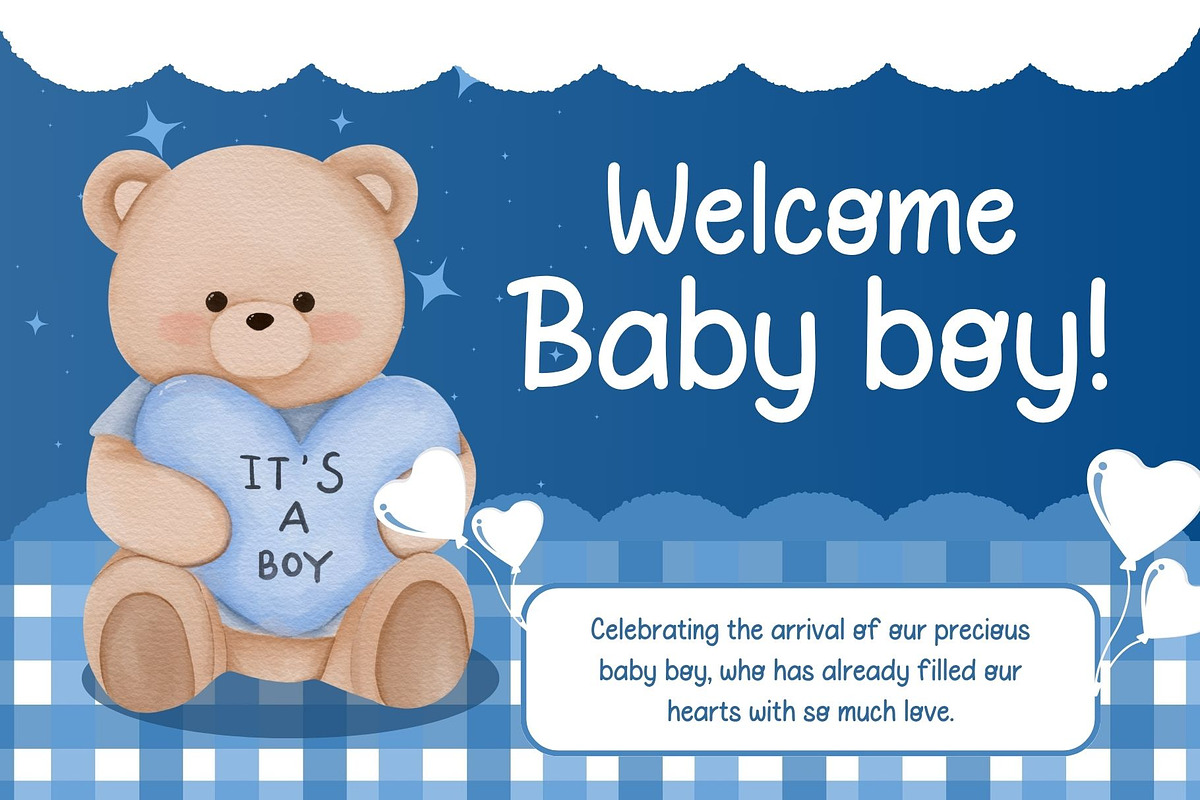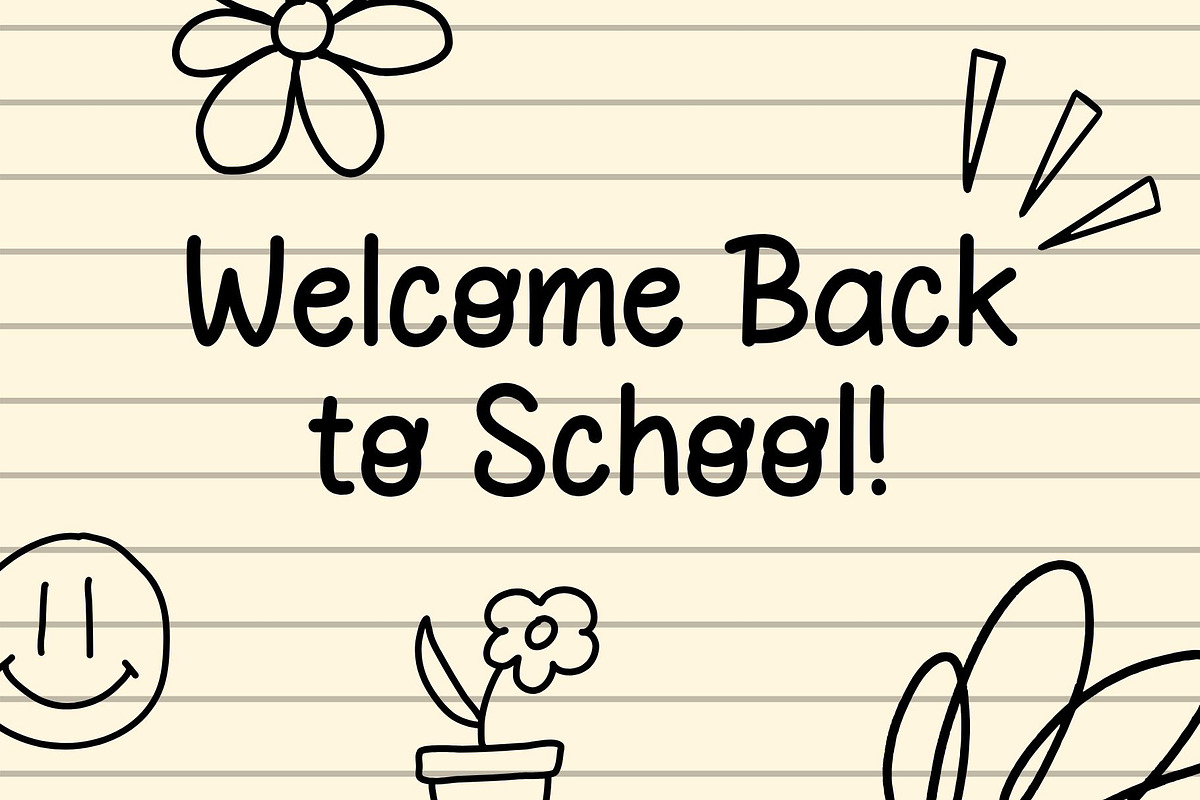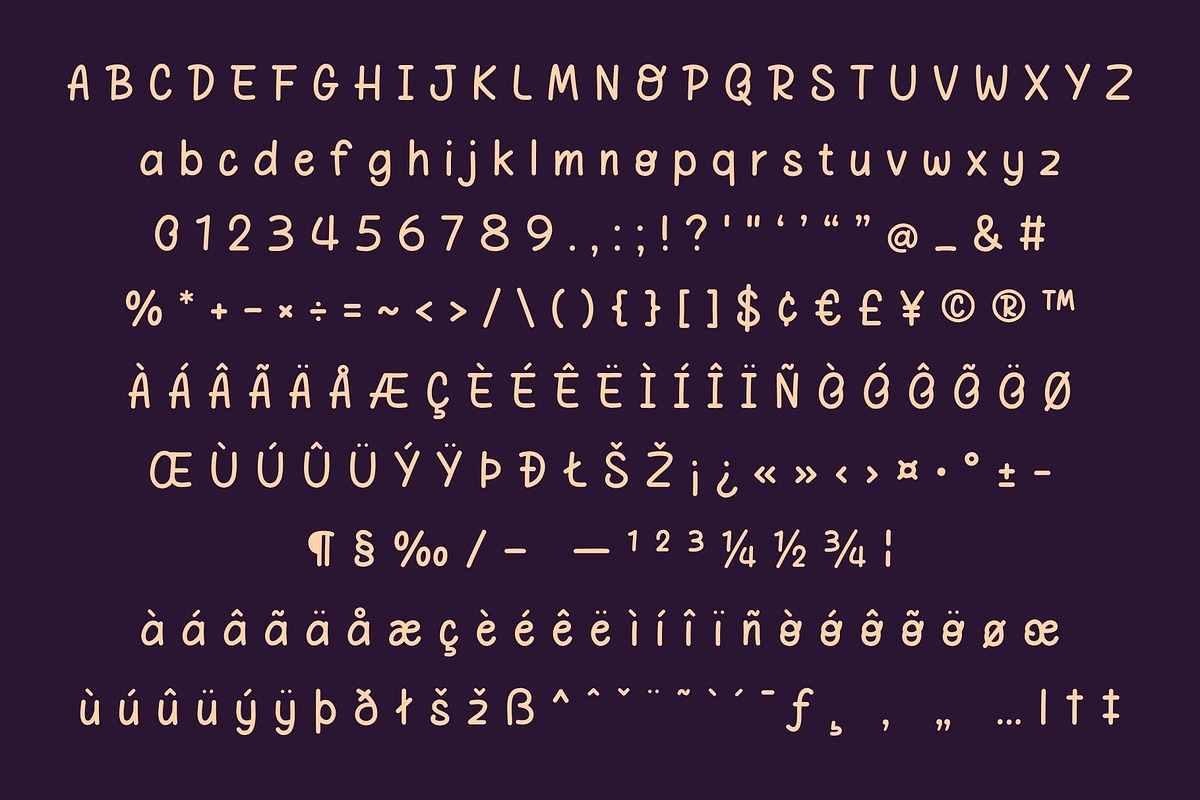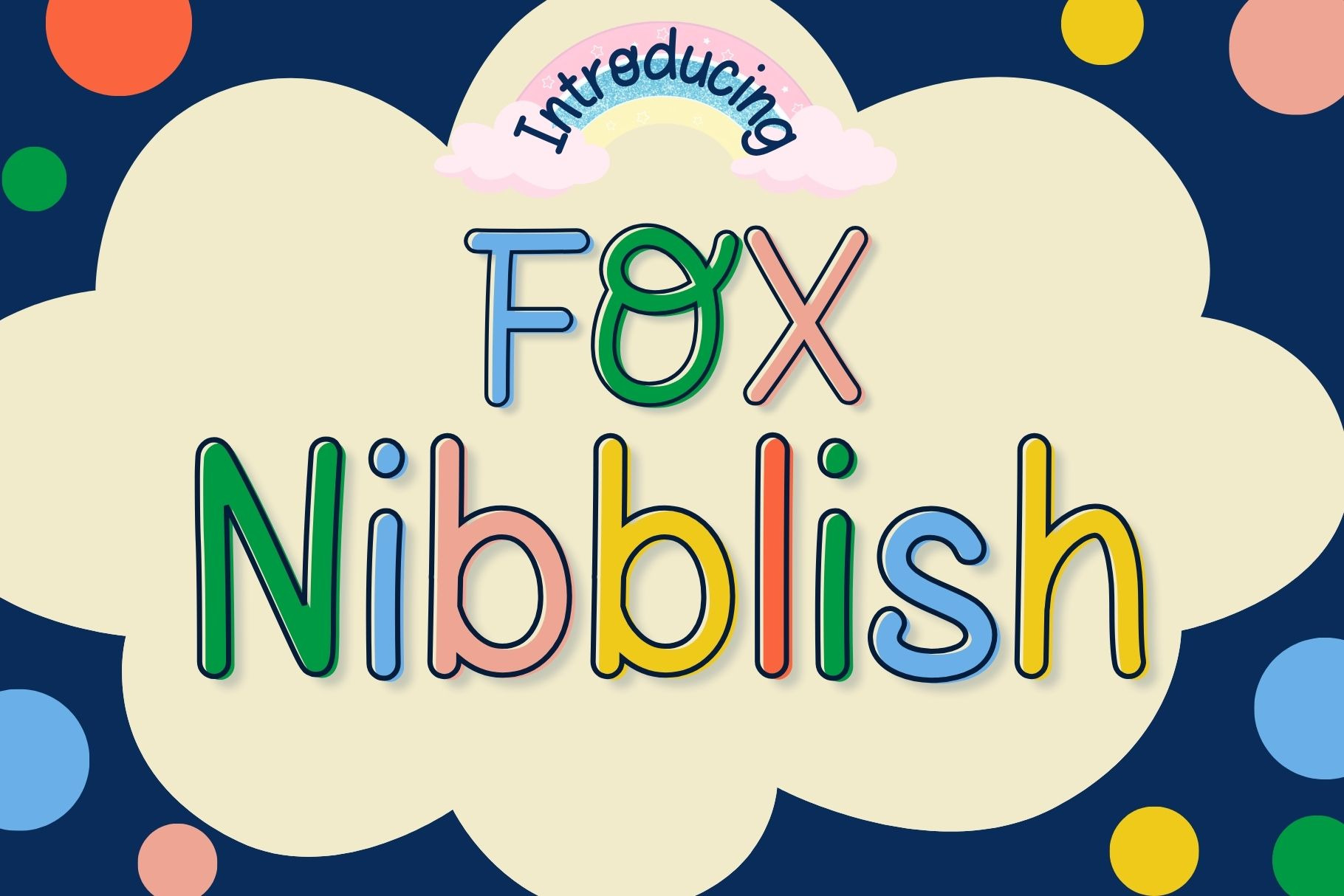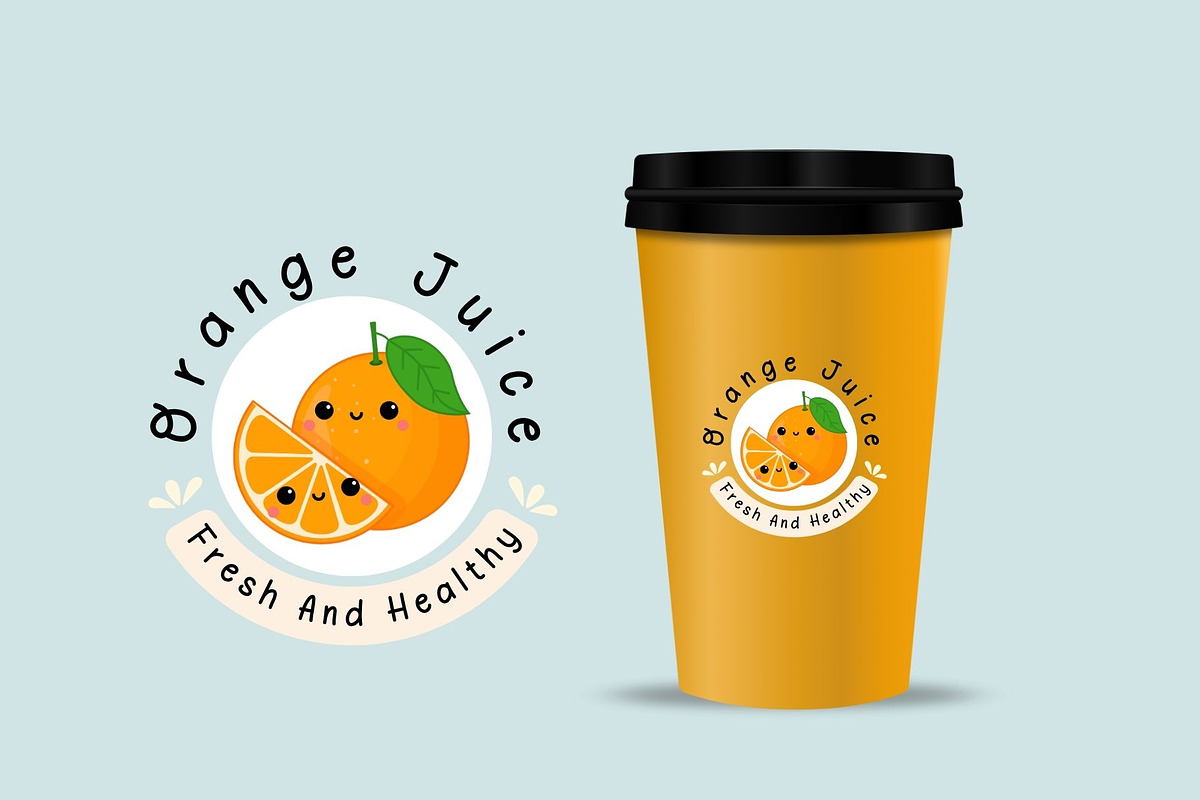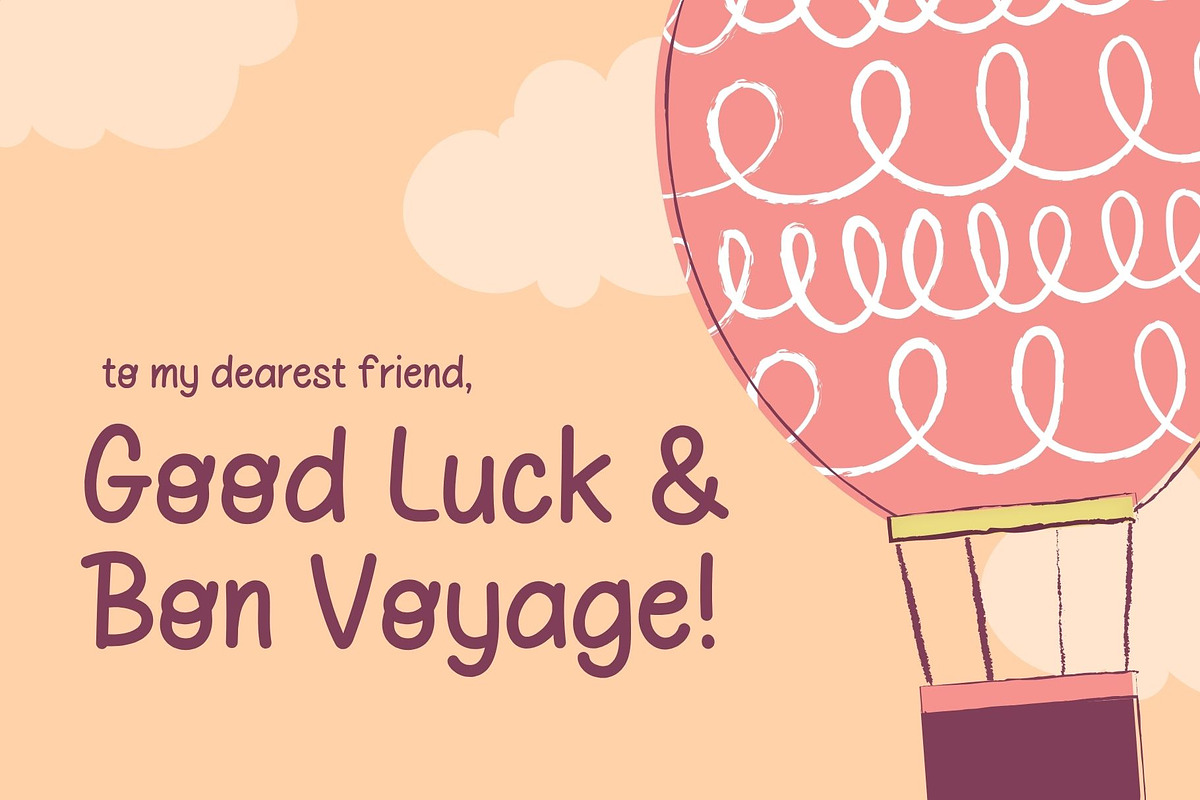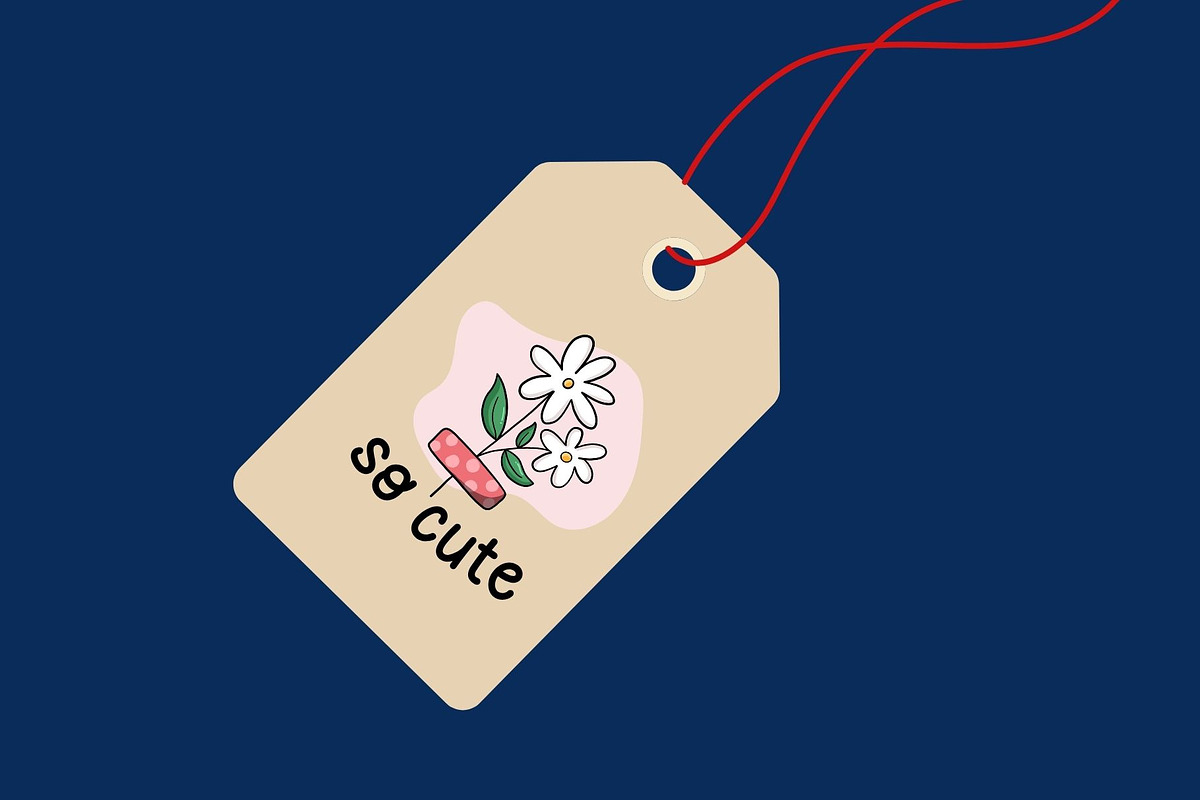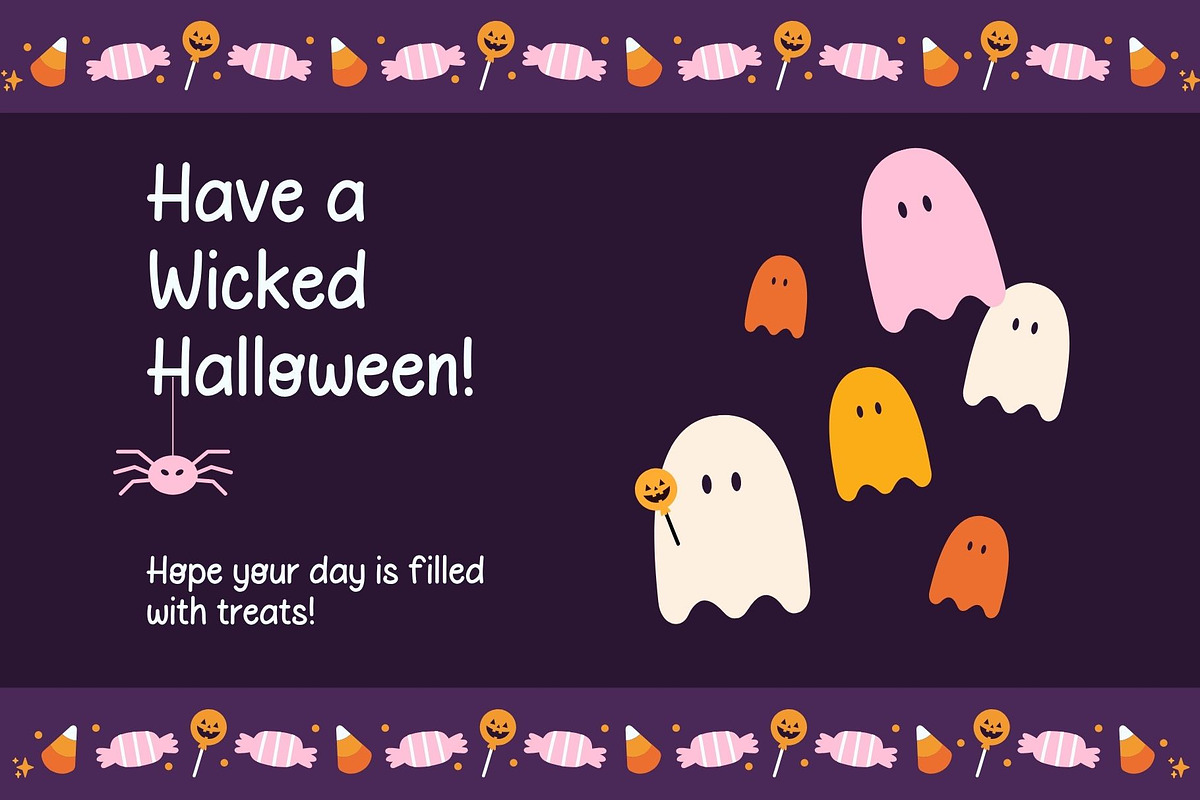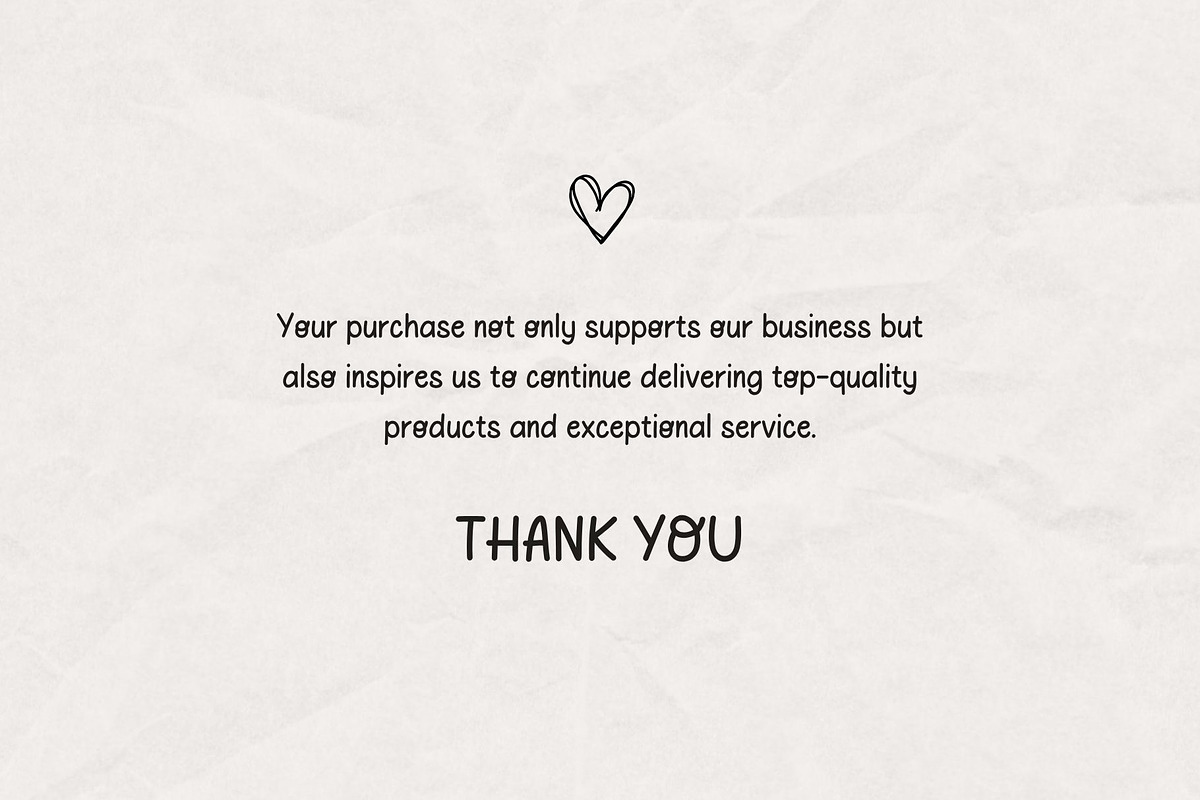
Fox Nibblish Font
Fox Nibblish – Playful Handwritten Font for Kids & Creativity
Say hello to Fox Nibblish, a cheerful and colorful display font designed to spark joy and imagination! With its quirky shapes, smooth curves, and childlike charm, this font is perfect for kids-themed designs, educational materials, books, games, packaging, and more.
⊹ Children’s Books & Games
⊹ Classroom Materials
⊹ Toy Branding & Packaging
⊹ Birthday Invitations
⊹ Posters, Stickers & Crafts
Bring joy and color into your designs with Fox Nibblish — where every letter feels like a tiny bite of happiness!